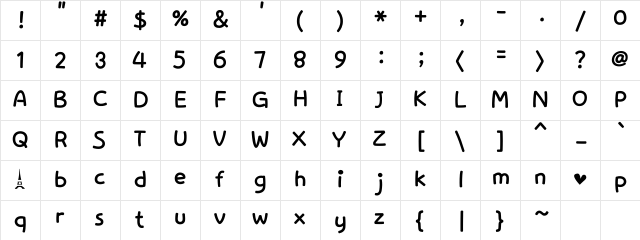
Love in Paris Regular
Design Context for Love in Paris Typeface
Love in Paris offers clean, dependable letterforms without strong stylistic allegiance, making it a practical choice for designers who need flexibility.
Pro Tip: Use Love in Paris in both headline and body roles to test its range before committing to a single application.